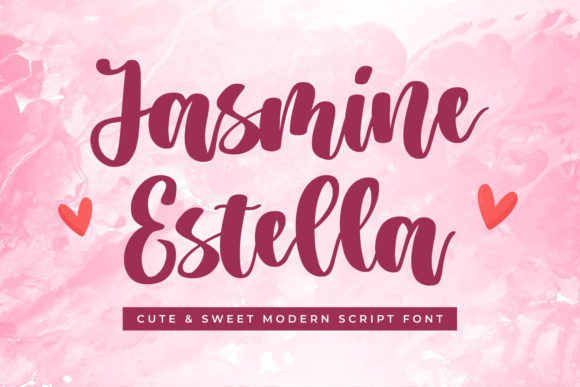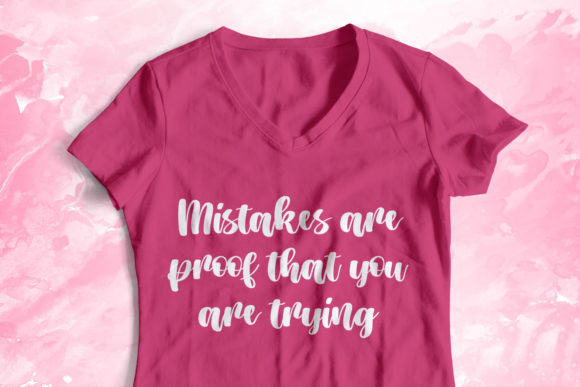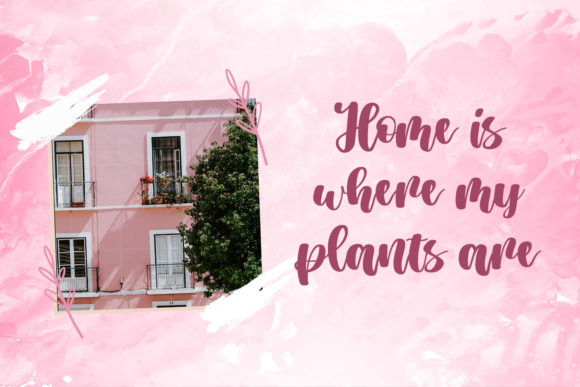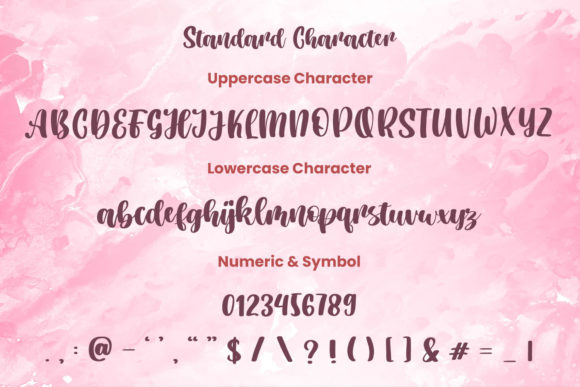
About Jasmine Estella Font
Jasmine Estella is a sweet and round lettered script font. Fall in love with its cute and joyful style and use it to create gorgeous wedding invitations, beautiful stationary art, eye-catching social media posts, and much more!